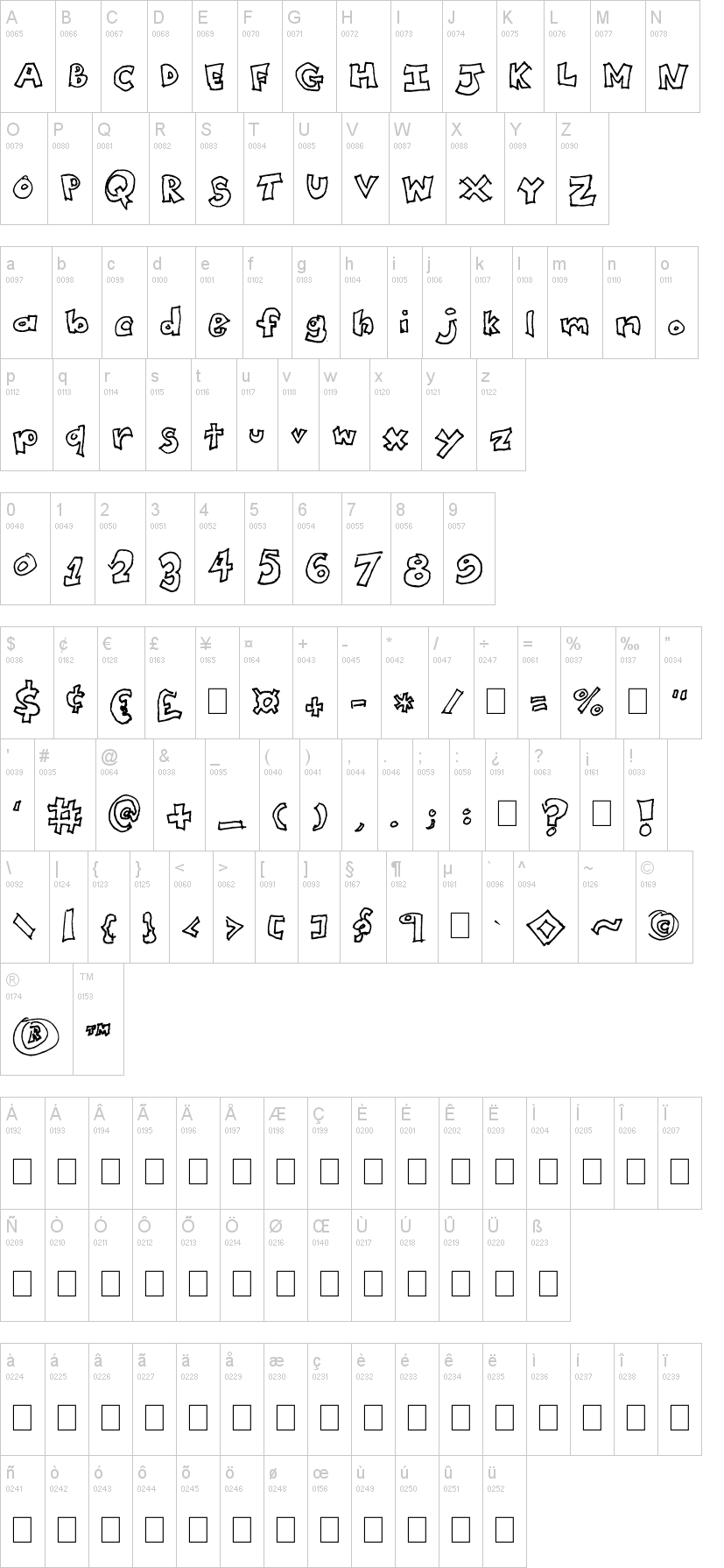
Note of the authorThe handwriting of a former College RA, this font will give your sign authenticity and make it stand out from the rest. Hope you like it.